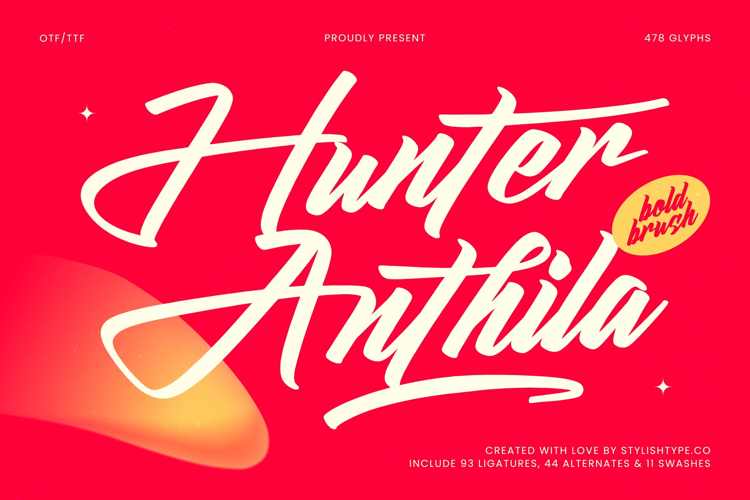
Hunter Anthila - Bold Brush Font
Hunter Anthila
Hunter Anthila Italic
Inject instant energy into your design portfolio with Hunter Anthila - Bold Brush Font. This expressive, handwritten typeface captures the raw, dynamic spirit of authentic brushwork, delivering unmatched visual impact for any project requiring personality and flair. Its bold, thick strokes command attention, creating an unmistakable presence whether used for impactful branding or eye-catching headlines. The fluid connectivity ensures readability while maintaining a highly organic and artistic flow.